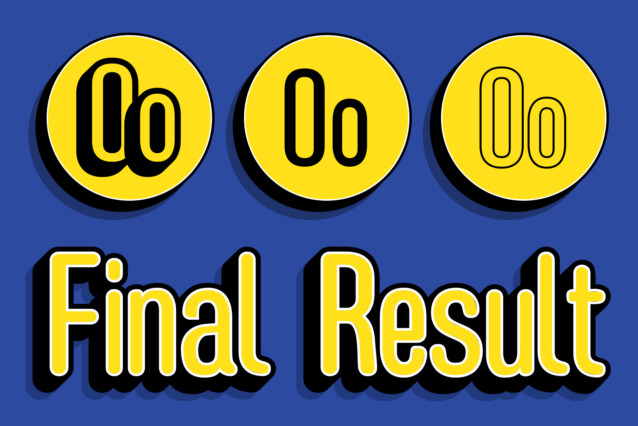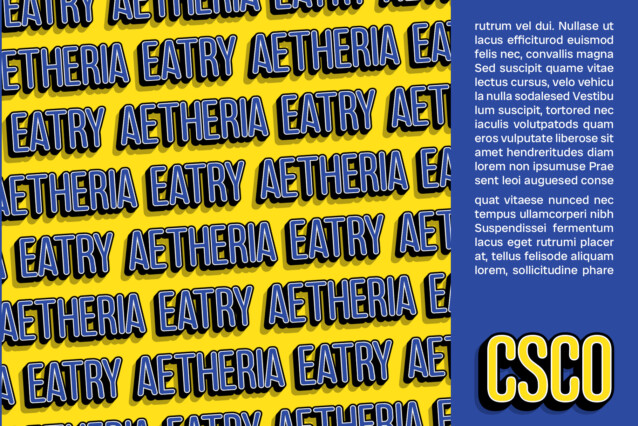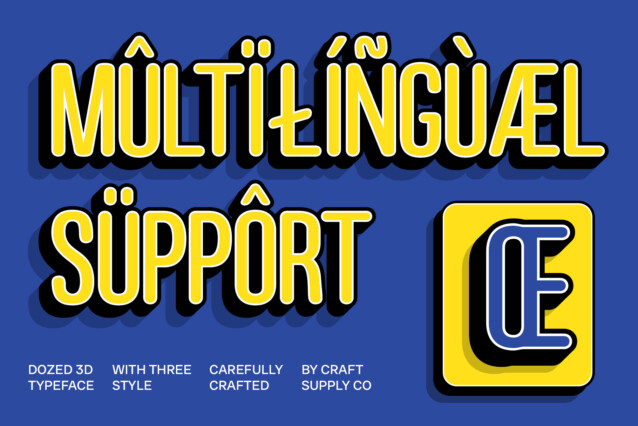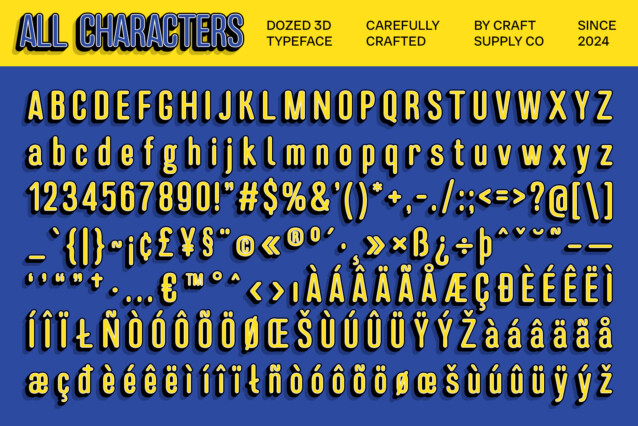
Dozed Rounded 3D Font
Dozed Rounded 3D Font is a modern condensed sans-serif font that features rounded shapes and a captivating 3D effect. Its sleek and stylish design makes it an excellent choice for contemporary projects that require a clean and dynamic appearance.
Perfect for Sleek Branding
The rounded shapes and condensed form provide a modern and professional look, making this font perfect for sleek branding. Its distinctive design ensures that logos and brand materials stand out with a polished and contemporary feel.